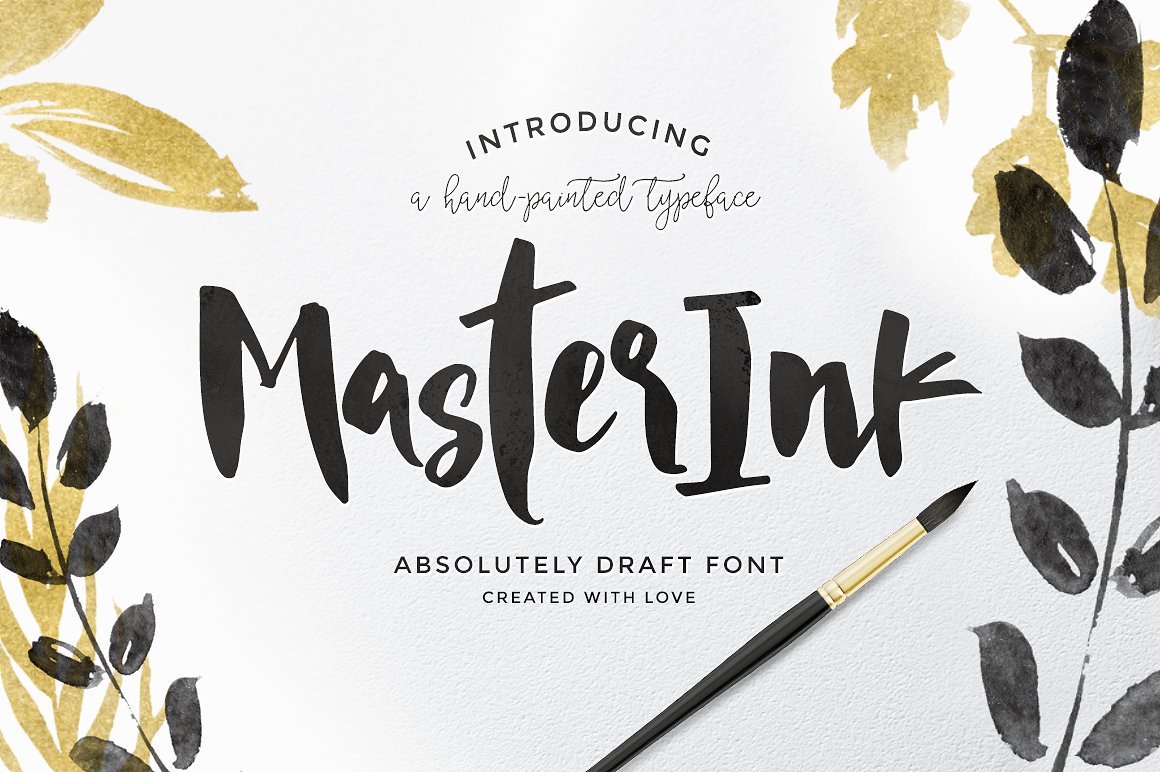
MasterInk Font
About MasterInk Font
MasterInk is a font crafted with love and artistry–this brush stroke font is gorgeous and splotchy, making it suitable for friendly and casual designs.